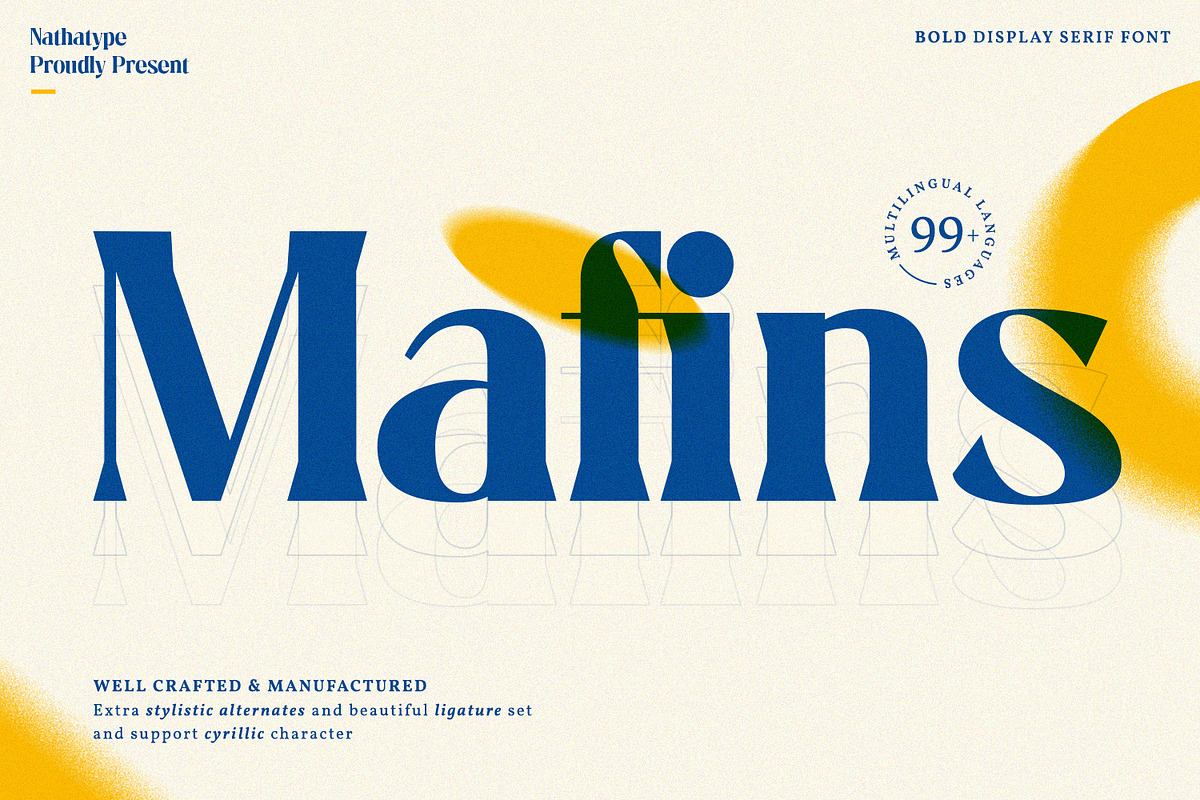
Mafins-Serif Font Family Free Download is an elegant and versatile serif typeface designed to bring sophistication and readability to your projects. With a range of weights and styles, Mafins offers flexibility for a wide array of design needs, including branding, editorial design, packaging, and more.
This font family features classic serif details paired with modern proportions, providing a timeless yet contemporary feel. Whether you're creating a luxurious logo, a refined magazine layout, or a sleek website design, Mafins-Serif brings both professionalism and charm to your typography.